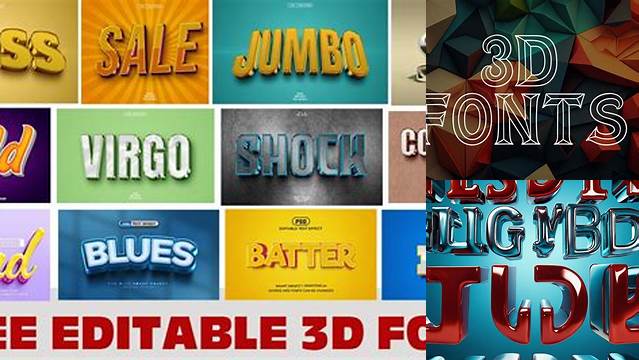
Best 3D Fonts For Photoshop: Free & Premium Picks
Hey guys! Are you looking to make your text pop in Photoshop? 3D fonts are the way to go! They add depth and dimension that can really grab attention. Whether you're designing a logo, creating eye-catching graphics, or just experimenting with typography, the right 3D font can make all the difference. Let's dive into some of the best 3D fonts you can use in Photoshop, both free and premium, to take your designs to the next level.
1. What are 3D Fonts and Why Use Them?
Okay, so what exactly are 3D fonts? Simply put, they're fonts that have a three-dimensional appearance. Instead of just being flat letters, they look like they have depth, shadows, and volume. This makes them super versatile for a bunch of design projects. Why use them? Well, for starters, they make your text stand out. In a world full of flat designs, a 3D font can be a total game-changer. They can add a touch of realism, sophistication, or even a fun, playful vibe depending on the style you choose. Plus, they're perfect for headlines, posters, logos, and any other design where you want to make a statement. Using 3D fonts in Photoshop can help you create stunning visuals that leave a lasting impression. Imagine a logo that seems to jump off the screen or a poster with text that has real depth—that's the power of 3D fonts!
2. Top Free 3D Fonts for Photoshop
Alright, let's talk freebies! There are some seriously awesome free 3D fonts out there that you can use in Photoshop without spending a dime. You might think free fonts mean lower quality, but trust me, there are some gems to be found. For example, you can find fonts that mimic metal, neon, or even hand-drawn 3D styles. These fonts are perfect for personal projects, experimenting with different designs, or if you're just starting out and don't want to invest in premium options yet. The great thing about using free 3D fonts for Photoshop is that it allows you to explore various styles and see what works best for your project without any financial commitment. Just be sure to check the license terms, as some free fonts may have restrictions on commercial use. So, go ahead and dive into the world of free 3D fonts – you might just find your new favorite!
3. Best Premium 3D Fonts for Professional Projects
Now, if you're working on professional projects or want that extra level of polish, premium 3D fonts are definitely worth considering. These fonts often come with more detailed designs, additional features, and broader licensing for commercial use. Investing in premium 3D fonts can really elevate your work and give it a high-end feel. Think about it: a well-crafted 3D font can make your brand look more professional, your marketing materials more engaging, and your overall design aesthetic more sophisticated. Plus, premium fonts often come with support and updates, ensuring they work seamlessly with your software and continue to look great over time. So, if you're serious about design and want the best tools at your disposal, exploring the best premium 3D fonts is a smart move. They can be a bit of an investment, but the payoff in terms of quality and impact is totally worth it.
5. Using 3D Fonts for Logos and Branding
Let's talk branding! 3D fonts can be a total game-changer when it comes to creating logos and building a brand identity. A well-chosen 3D font can make your logo pop, giving it a unique and memorable look. Think about it: your logo is often the first thing people see, so you want it to make a strong impression. Using 3D fonts for logos adds depth and dimension that flat fonts just can't match. It can convey a sense of innovation, sophistication, or even playfulness, depending on the style you go for. Plus, a 3D logo can look fantastic both online and in print, making it super versatile for all your branding needs. When you're designing a logo with 3D fonts, consider how the font's style aligns with your brand's personality. Do you want something bold and modern, or something more classic and elegant? The right font can really help communicate your brand's message and values. So, if you're looking to create a logo that stands out, 3D fonts are definitely worth exploring!
6. Creating Eye-Catching Headlines with 3D Fonts
Headlines are your chance to grab attention and make a statement, and 3D fonts are perfect for doing just that! Whether you're designing a website, a poster, or a social media graphic, using 3D fonts for eye-catching headlines can really make your text pop. They add depth and visual interest that flat fonts simply can't replicate. Imagine a headline that looks like it's jumping off the page or a title with a cool metallic sheen – that's the power of 3D fonts! When you're creating headlines with 3D fonts, think about the overall mood and message you want to convey. A bold, chunky 3D font can be perfect for announcing a sale or promotion, while a more elegant and refined 3D font might be better for a sophisticated event invitation. Experiment with different styles, colors, and effects to see what works best for your project. The key is to make your headline visually engaging and impossible to ignore. So go ahead, unleash the power of 3D fonts and create headlines that truly shine!
7. Designing Stunning Posters with 3D Typography
Posters are all about making a big impact, and 3D typography can be your secret weapon. Designing stunning posters with 3D typography is a fantastic way to grab attention and get your message across loud and clear. Think about it: a poster is often viewed from a distance, so you need elements that stand out and draw the eye. 3D fonts add depth and dimension that flat fonts just can't match, making your text visually compelling and memorable. Whether you're promoting a movie, an event, or a product, the right 3D font can make all the difference. When you're creating posters with 3D fonts, consider the overall style and theme of your design. A futuristic 3D font might be perfect for a sci-fi movie poster, while a vintage-inspired 3D font could work wonders for a retro event. Play around with different colors, shadows, and textures to create a truly unique and eye-catching design. With 3D typography, your posters are sure to make a lasting impression!
8. 3D Fonts for Social Media Graphics
In the fast-paced world of social media, it's crucial to make your content stand out. 3D fonts for social media graphics can help you do just that! With so much visual noise online, you need something that grabs attention instantly. 3D fonts add depth and dimension, making your text pop and your graphics more engaging. Whether you're creating a post for Instagram, Facebook, or Twitter, using 3D fonts can give your content a professional and polished look. Think about how a 3D font can enhance your message, whether it's a promotional announcement, a motivational quote, or a simple update. When you're using 3D fonts for social media, consider the platform and the audience you're targeting. A bold, eye-catching font might work well for a younger audience, while a more sophisticated font might be better for a professional network. Experiment with different styles and see what resonates best with your followers. With the right 3D fonts, your social media graphics are sure to shine!
9. Combining 3D Fonts with Photoshop Effects
Okay, let's get into some cool techniques! Combining 3D fonts with Photoshop effects is where the real magic happens. You can take a great 3D font and make it even more stunning by adding effects like shadows, glows, textures, and more. Think about how a simple drop shadow can add depth and dimension, or how a subtle glow can make your text look like it's illuminated. Photoshop offers a ton of tools and filters that you can use to enhance your 3D fonts and create truly unique designs. When you're experimenting with Photoshop effects, try different combinations to see what works best for your project. You can add a metallic texture to give your font a realistic look, or use a gradient overlay to create a cool color transition. The possibilities are endless! The key is to play around and have fun with it. With a little creativity, you can transform a basic 3D font into a masterpiece.
10. Creating Realistic 3D Text in Photoshop
Want to make your 3D text look super realistic? It's totally achievable in Photoshop! Creating realistic 3D text in Photoshop involves paying attention to details like lighting, shadows, and textures. The goal is to make your text look like it's actually existing in the real world. One of the key techniques is to use realistic lighting effects. Think about how light would hit your text in a real-world scenario and try to replicate that in Photoshop. You can add highlights and shadows to create depth and dimension, making your text look three-dimensional. Another important aspect is texture. Adding a subtle texture can make your text look more tactile and realistic. You can use textures like metal, wood, or even fabric to give your 3D text a unique look and feel. When you're working on realistic 3D text, pay attention to the small details. It's the little things that can really make a difference and take your design to the next level!